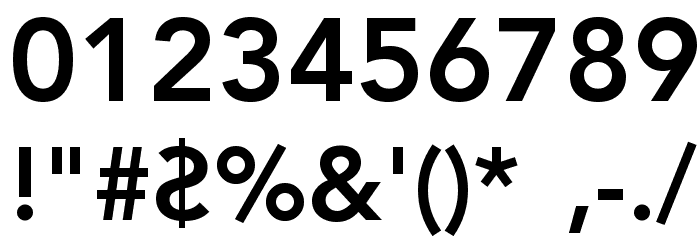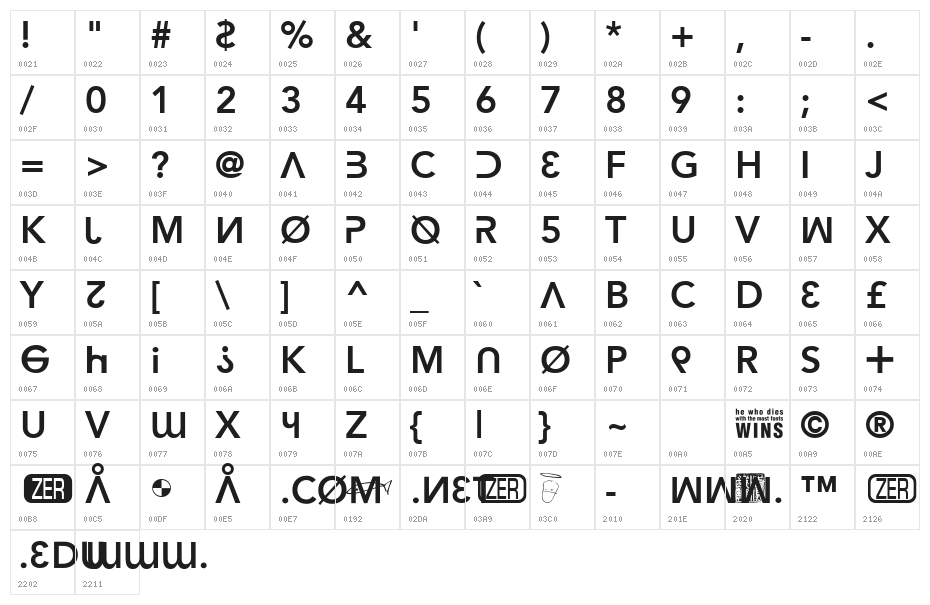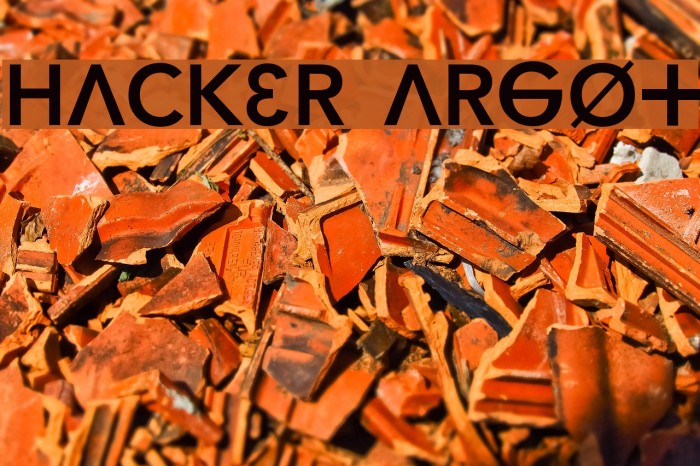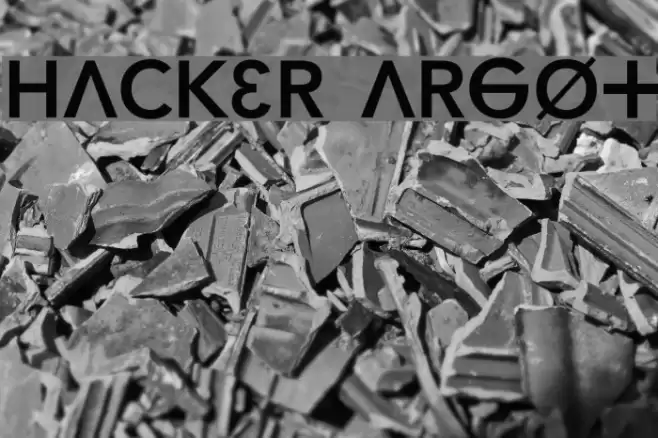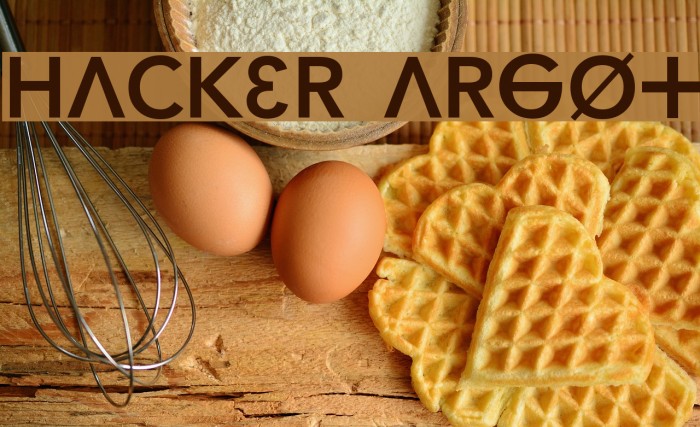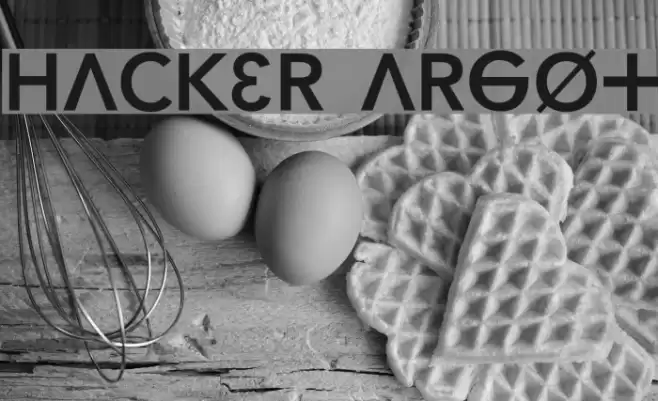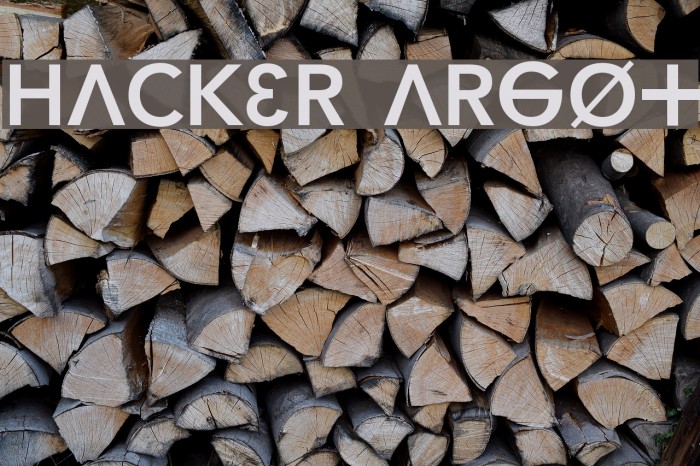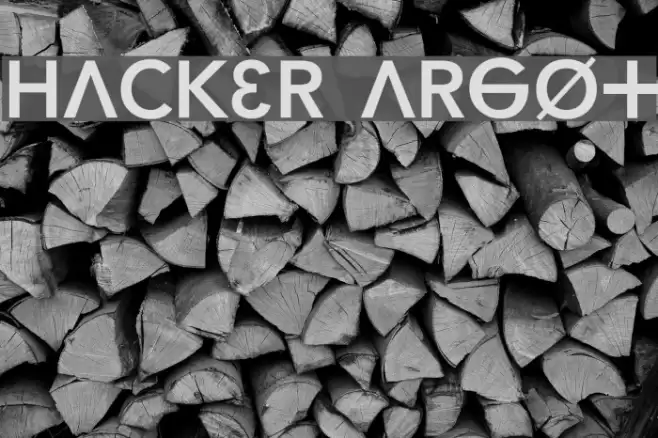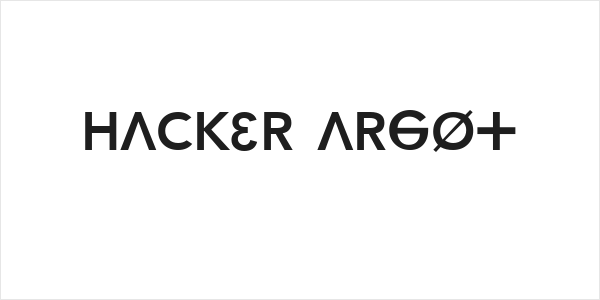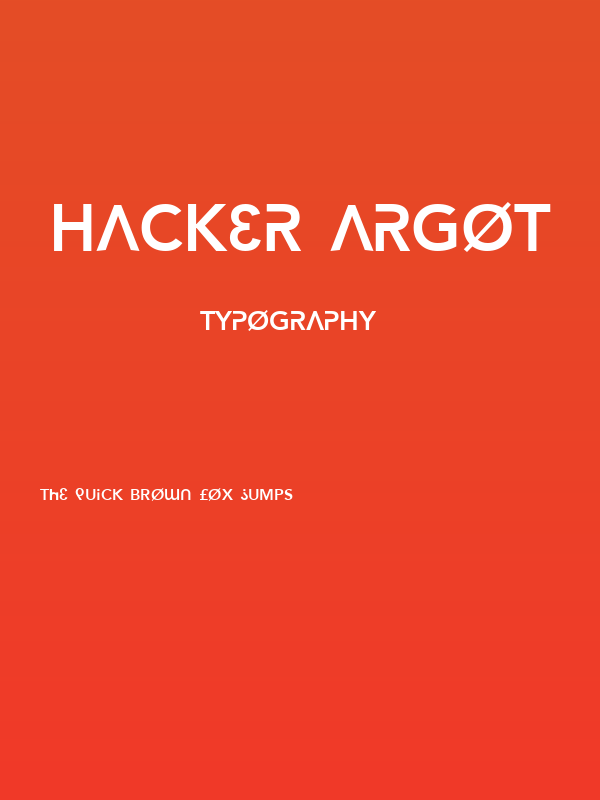
Hacker Argot Font
Hacker Argot Description
This font features a modern and futuristic design with a unique twist on traditional letterforms. The characters are bold and geometric, with some letters incorporating distinct slashes and angles that give it a tech-inspired aesthetic. The uppercase and lowercase letters maintain a consistent style, while the numerals and special characters complement the overall design. The font's clean lines and sharp edges make it suitable for digital and print media, where a contemporary and edgy look is desired.
| Proposed Projects | Ideal for technology branding, digital interfaces, video game graphics, and sci-fi themed projects. |